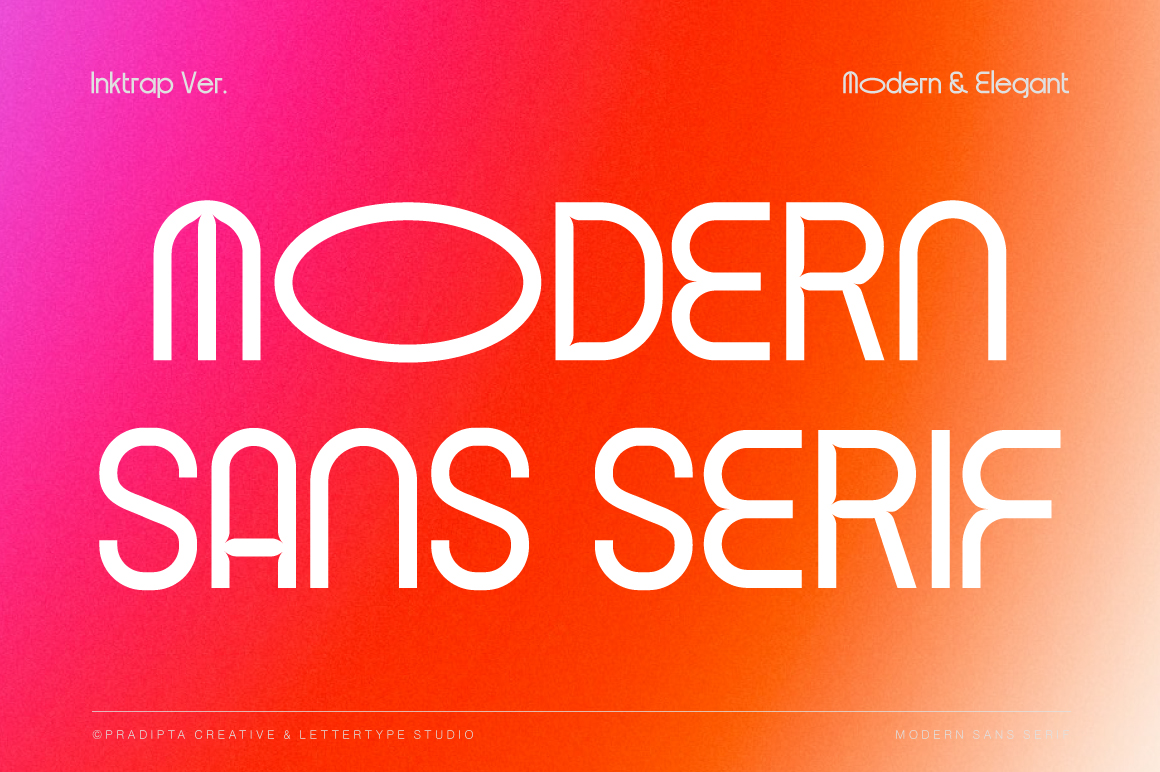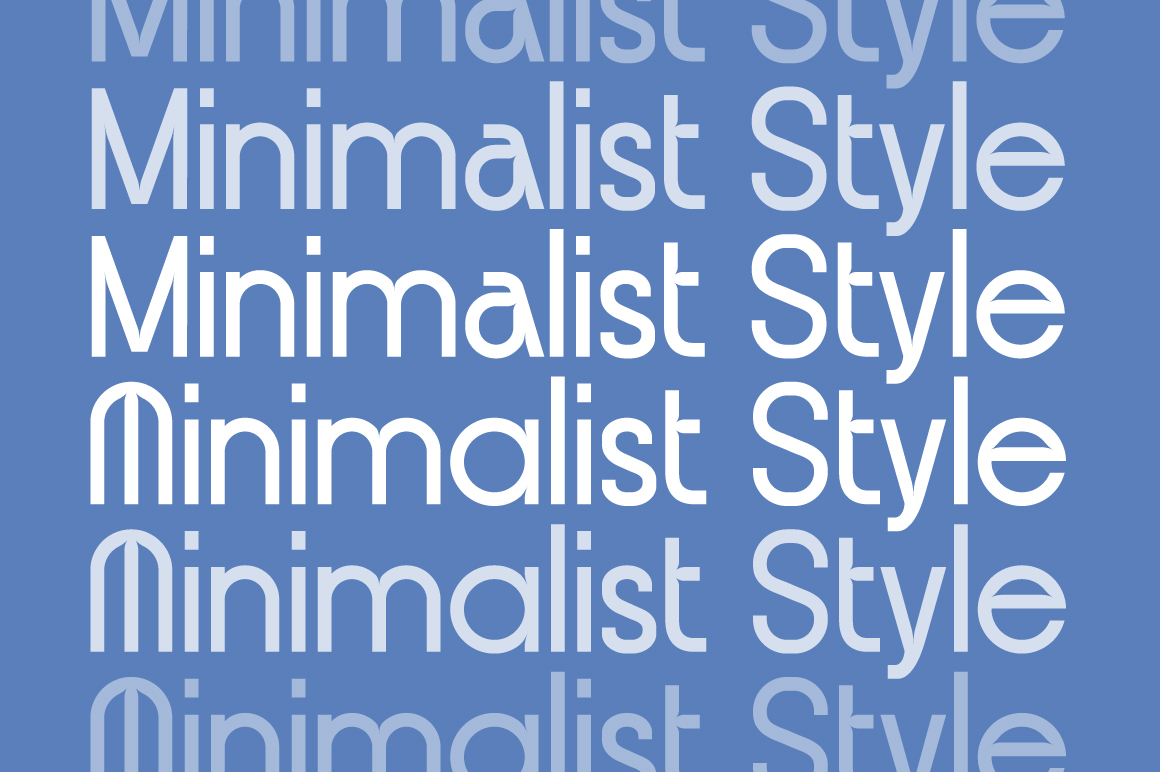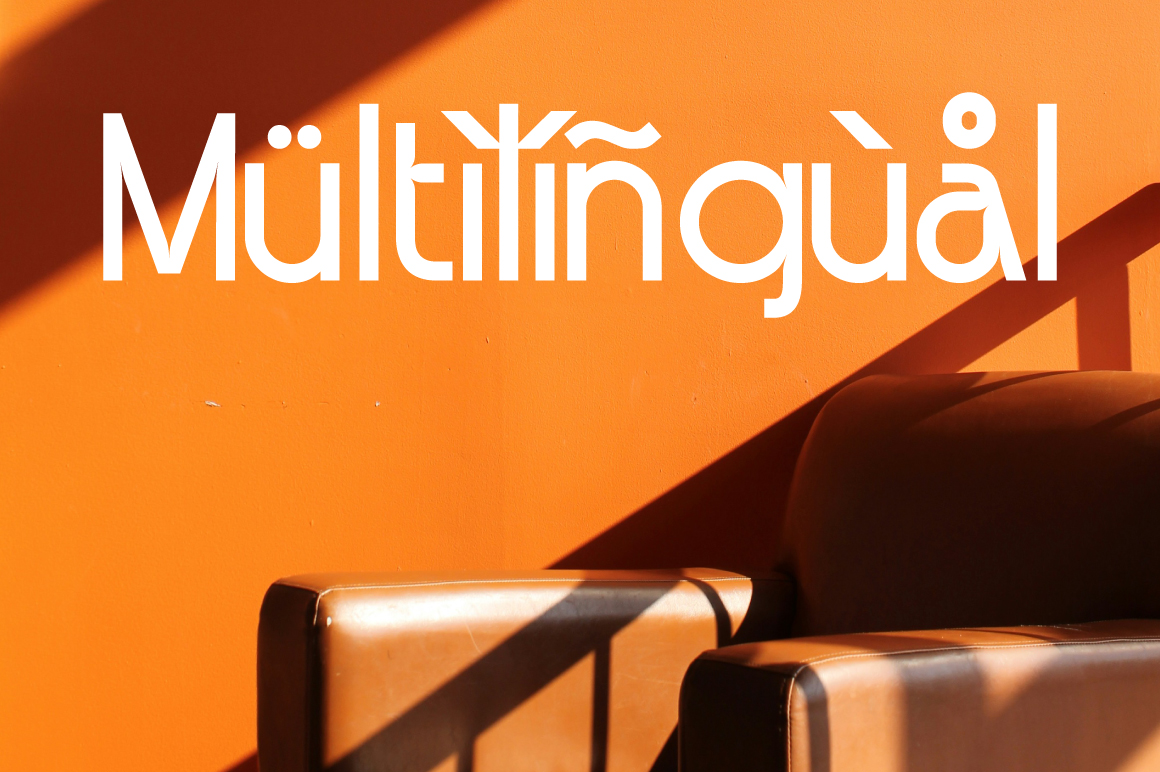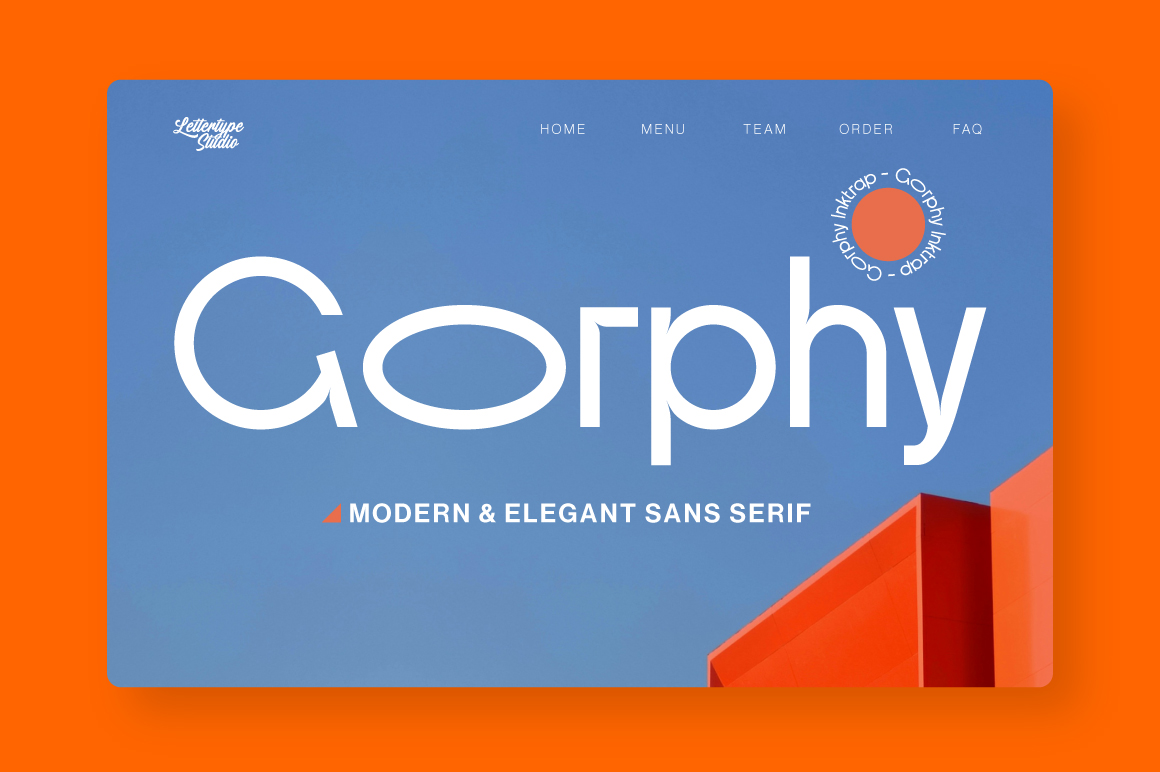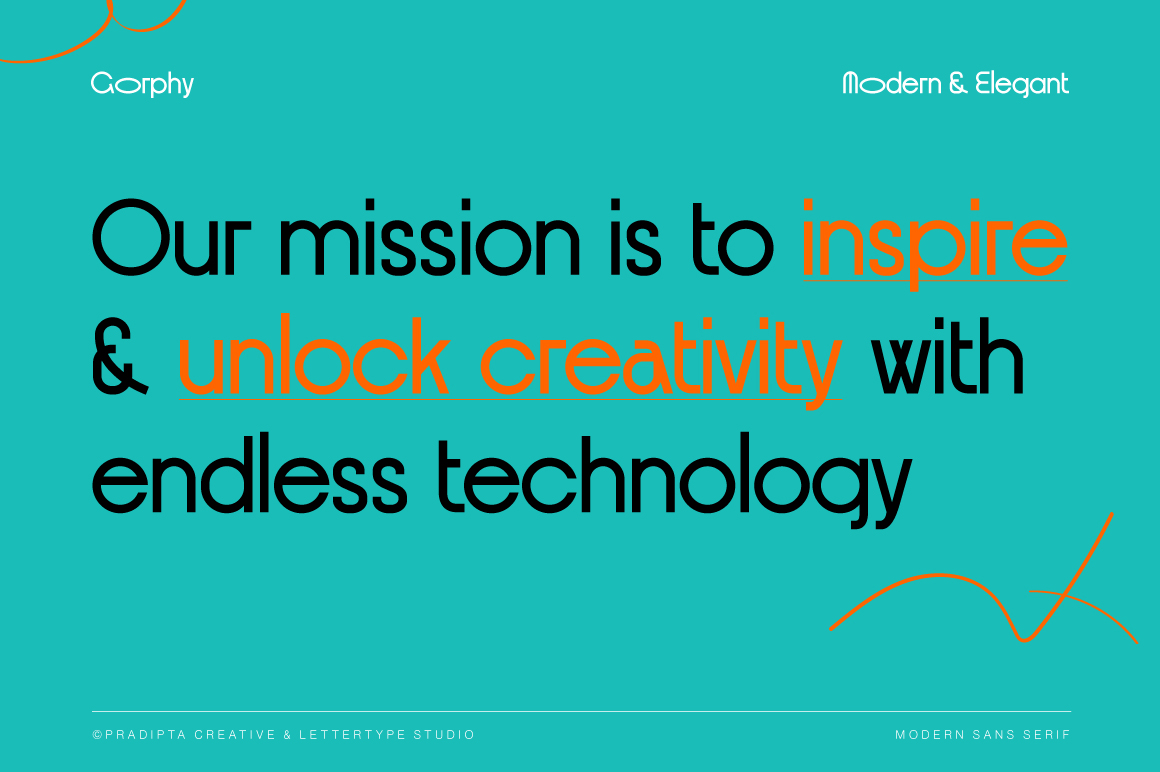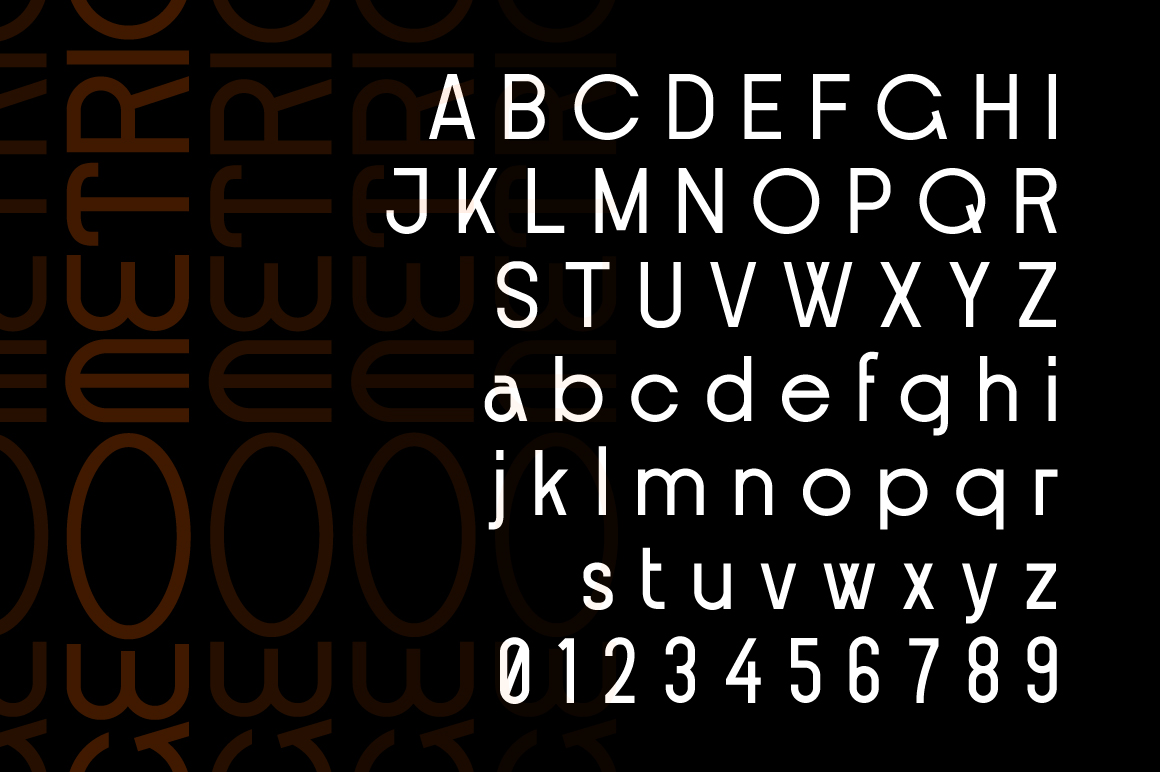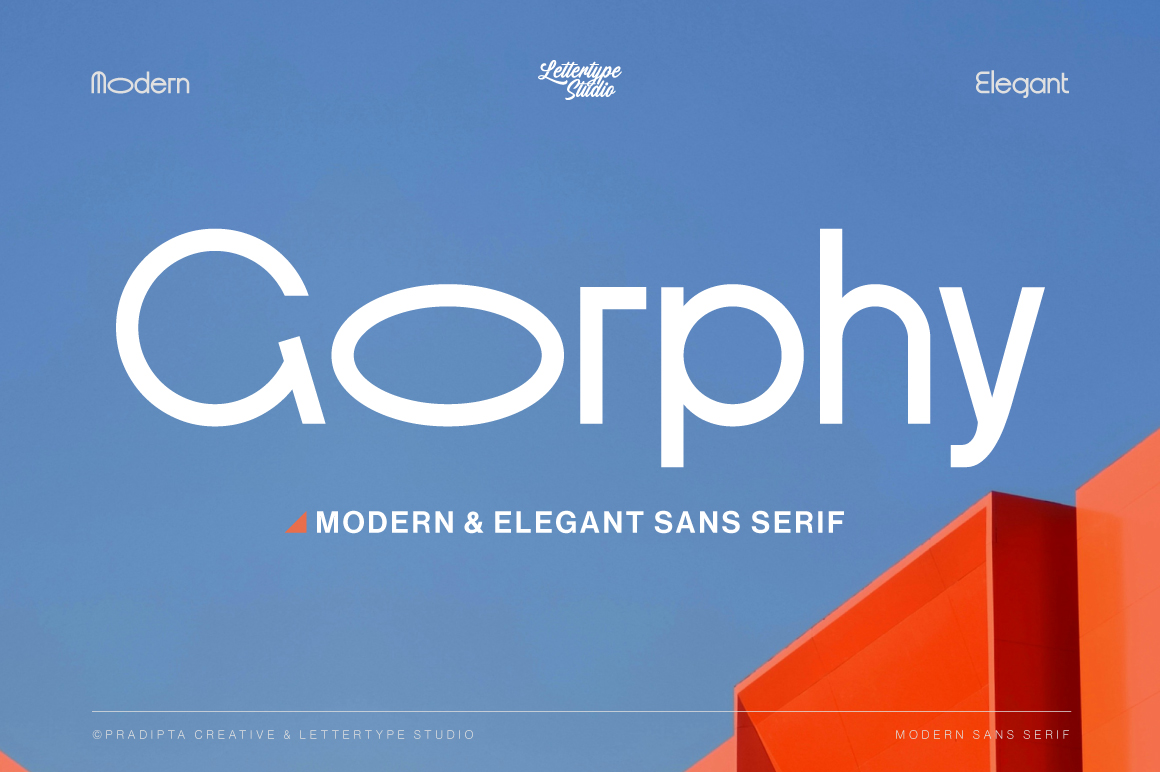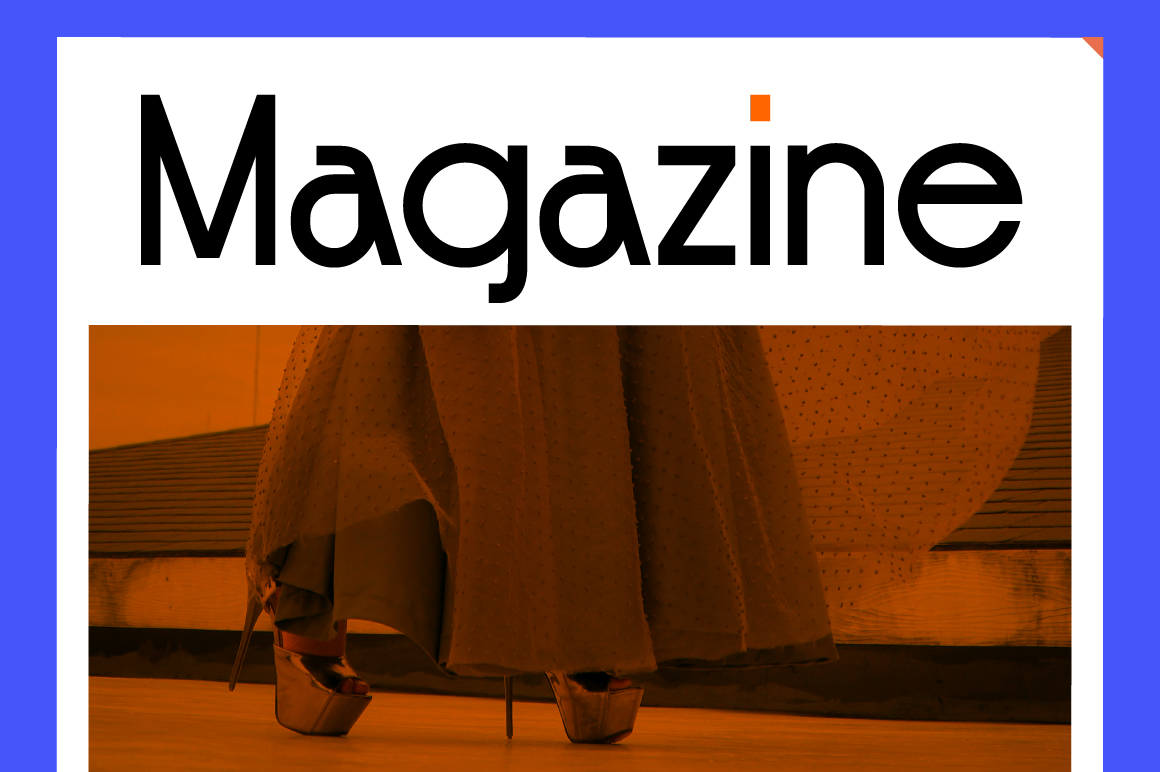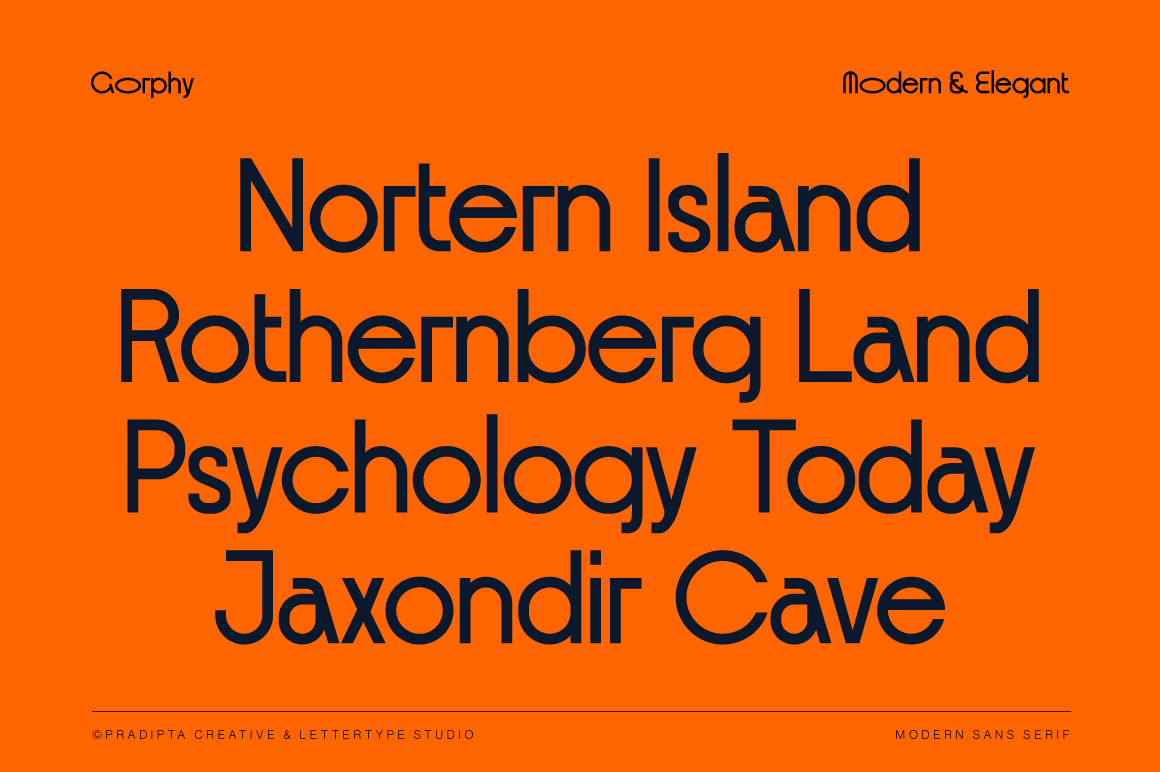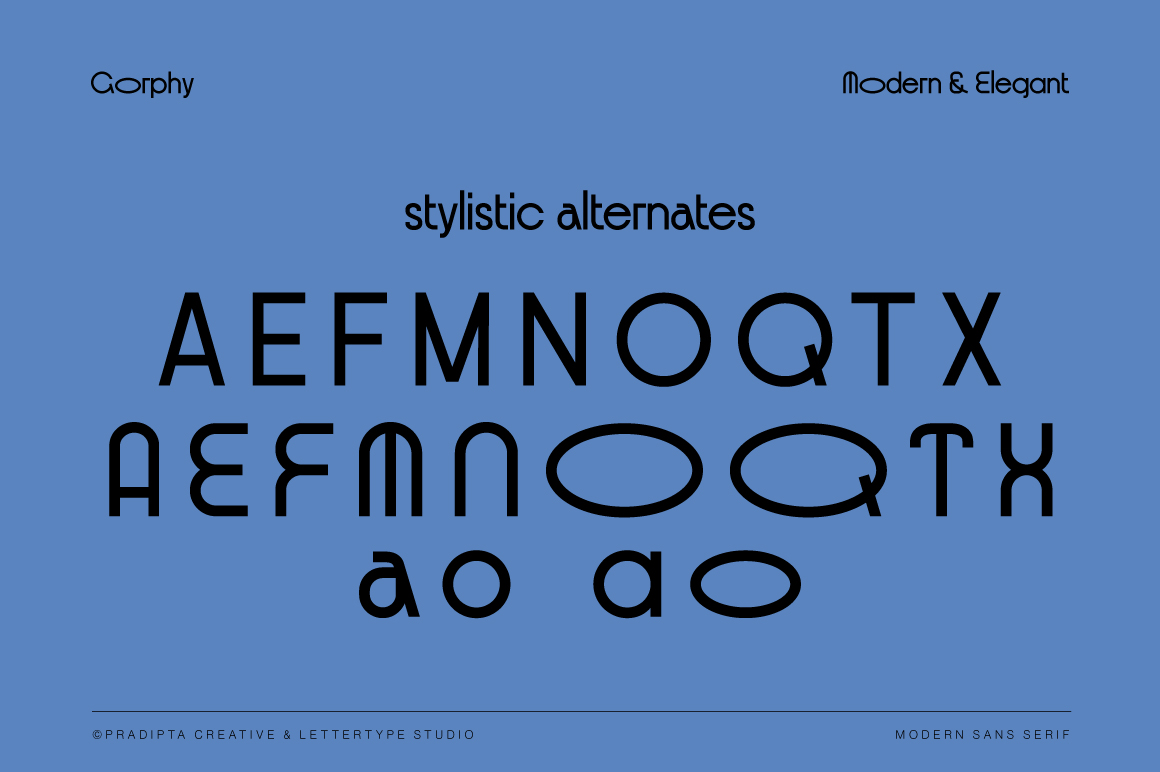
Gorphy
Gorphy Ink Traps
Gorphy is a modern and elegant sans serif font designed for refined branding and editorial work. Featuring clean lines, balanced proportions, and over 10 alternate glyphs, it offers designers creative flexibility for building unique visual identities.
Ideal for logos, packaging, and digital layouts, Gorphy combines contemporary minimalism with timeless sophistication. Whether used for bold headlines or subtle text, it delivers clarity and confidence that enhance any professional design project.
• Lowercase & Uppercase
• Numerals & Punctuation
• Alternates & Ligature
• Multilingual Support
• Modern branding, logo design & visual identity
• Editorial layouts, posters & magazine headers
• Tech-inspired packaging & web typography
• Social media graphics & minimalist advertising
• Clean geometric projects with inktrap character details